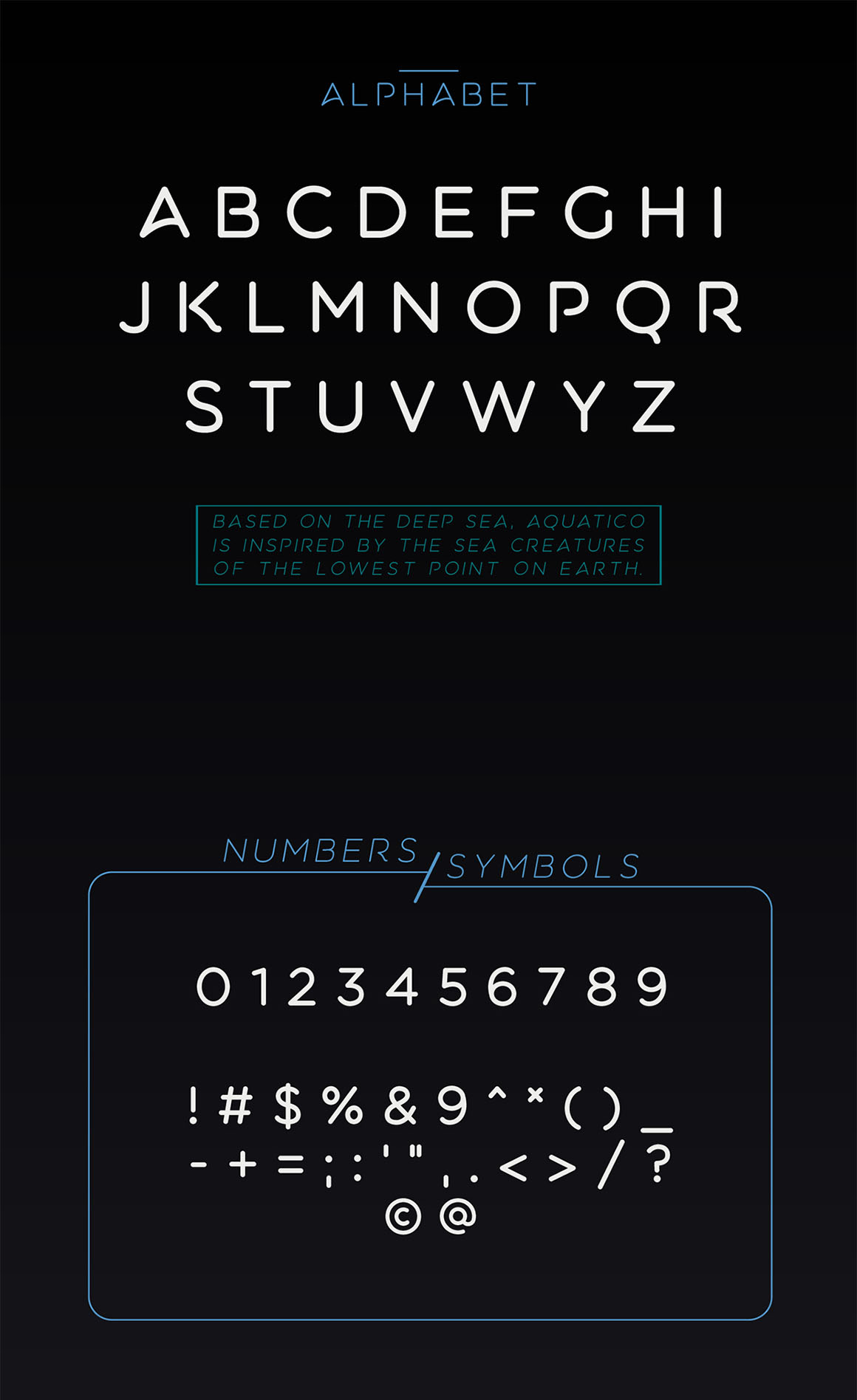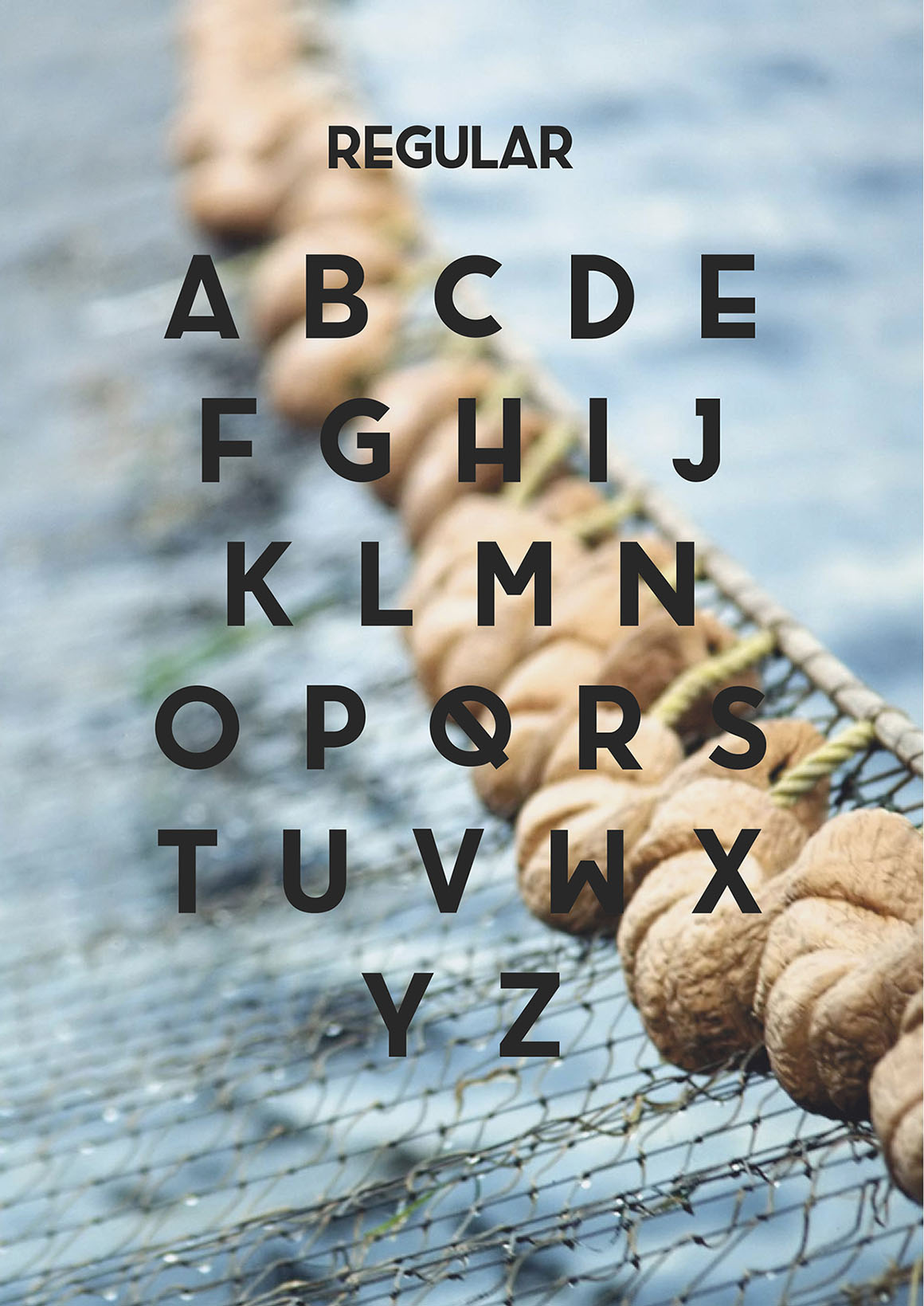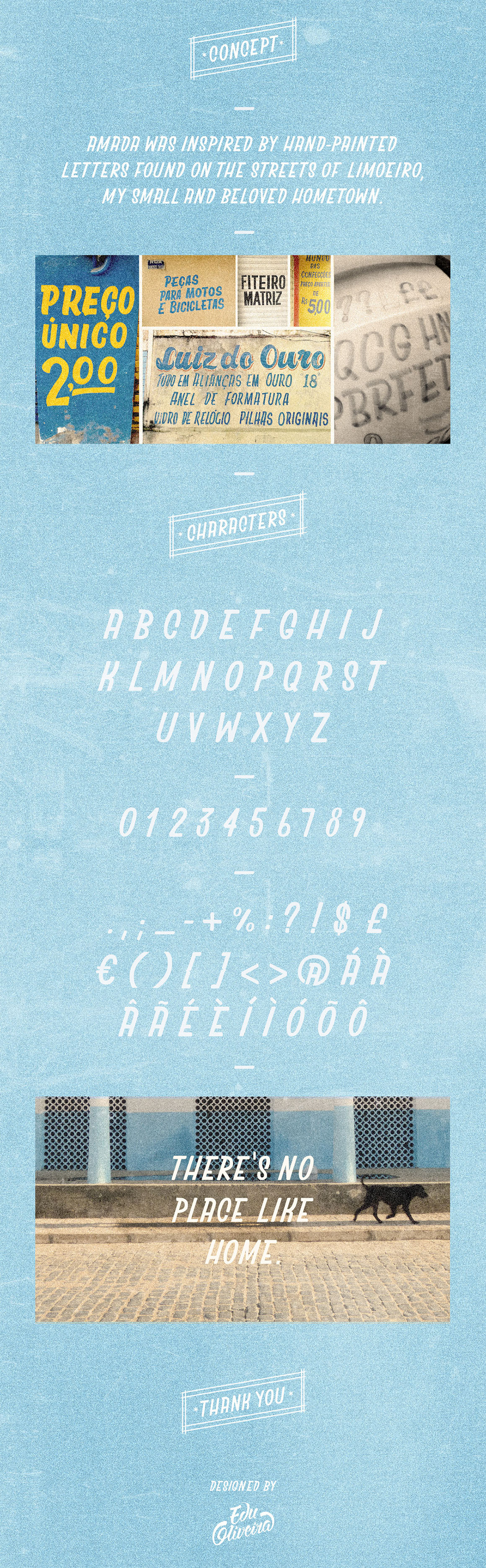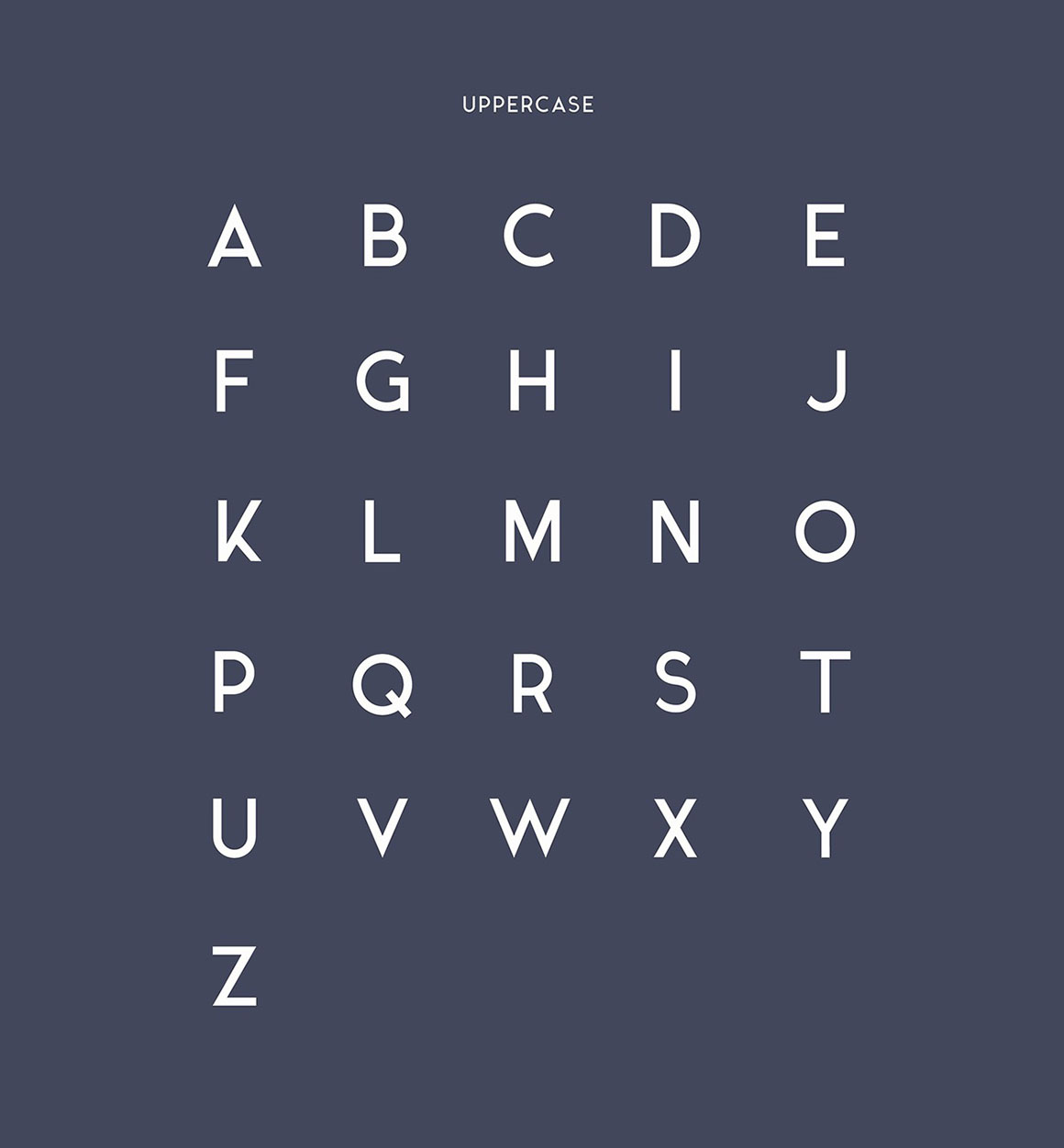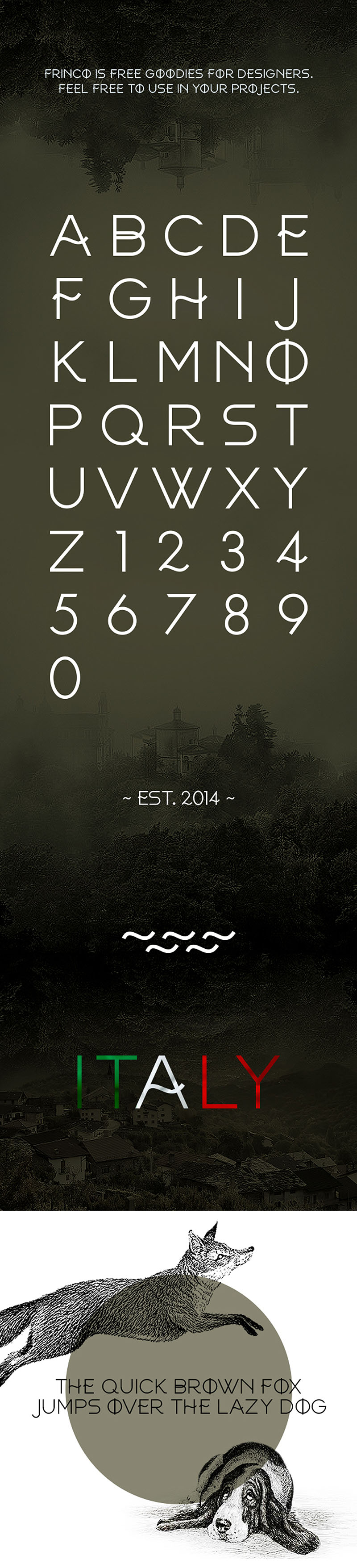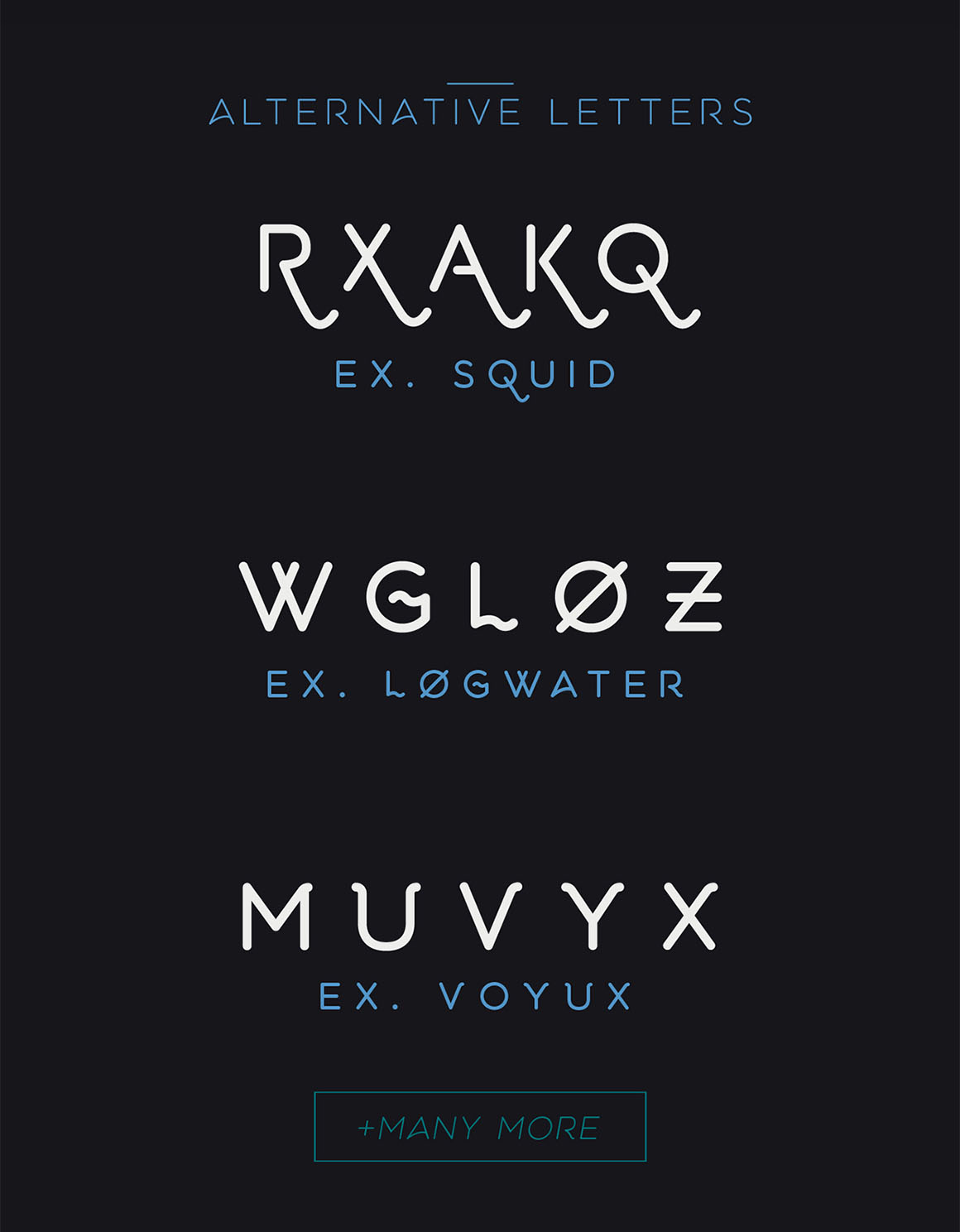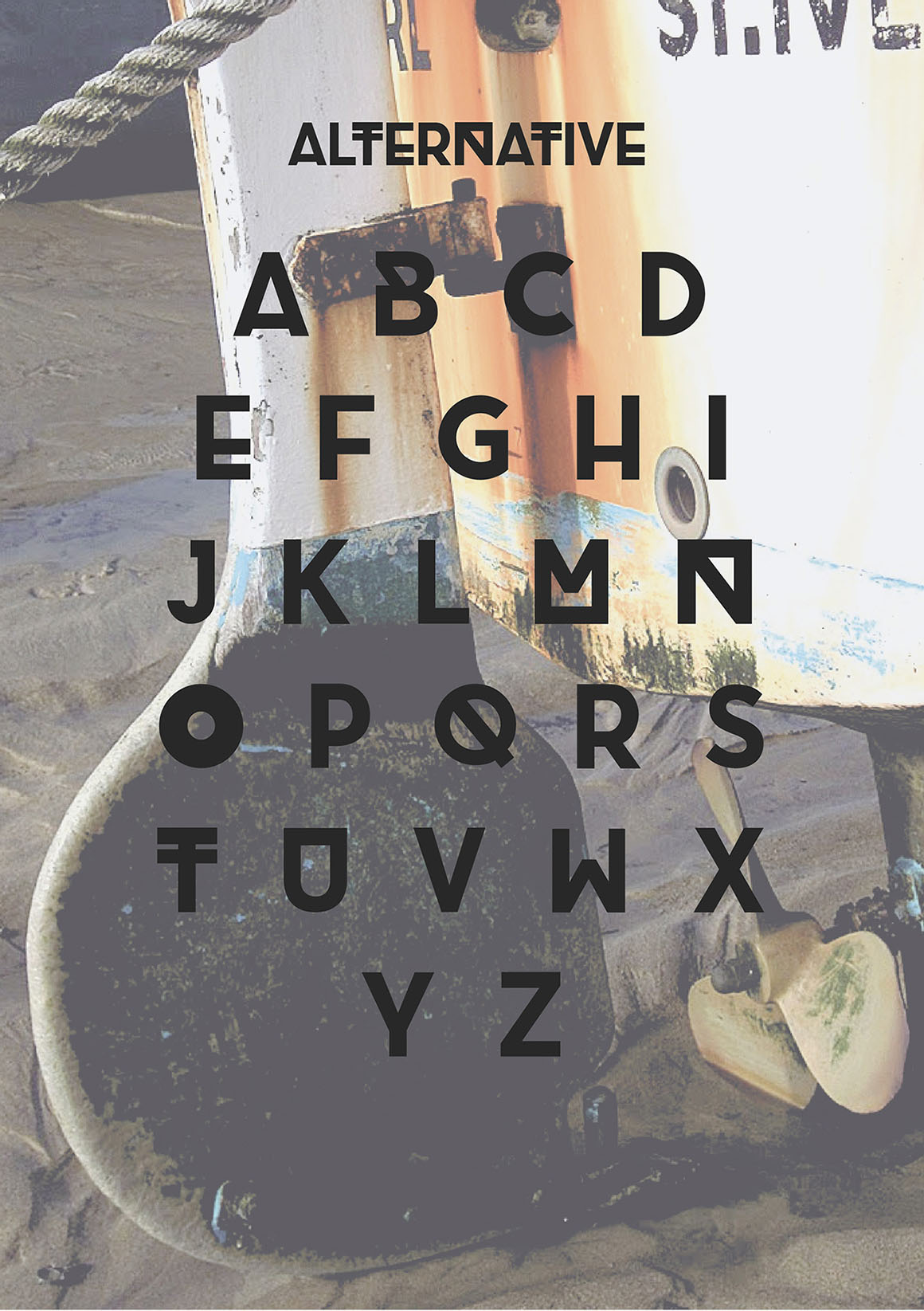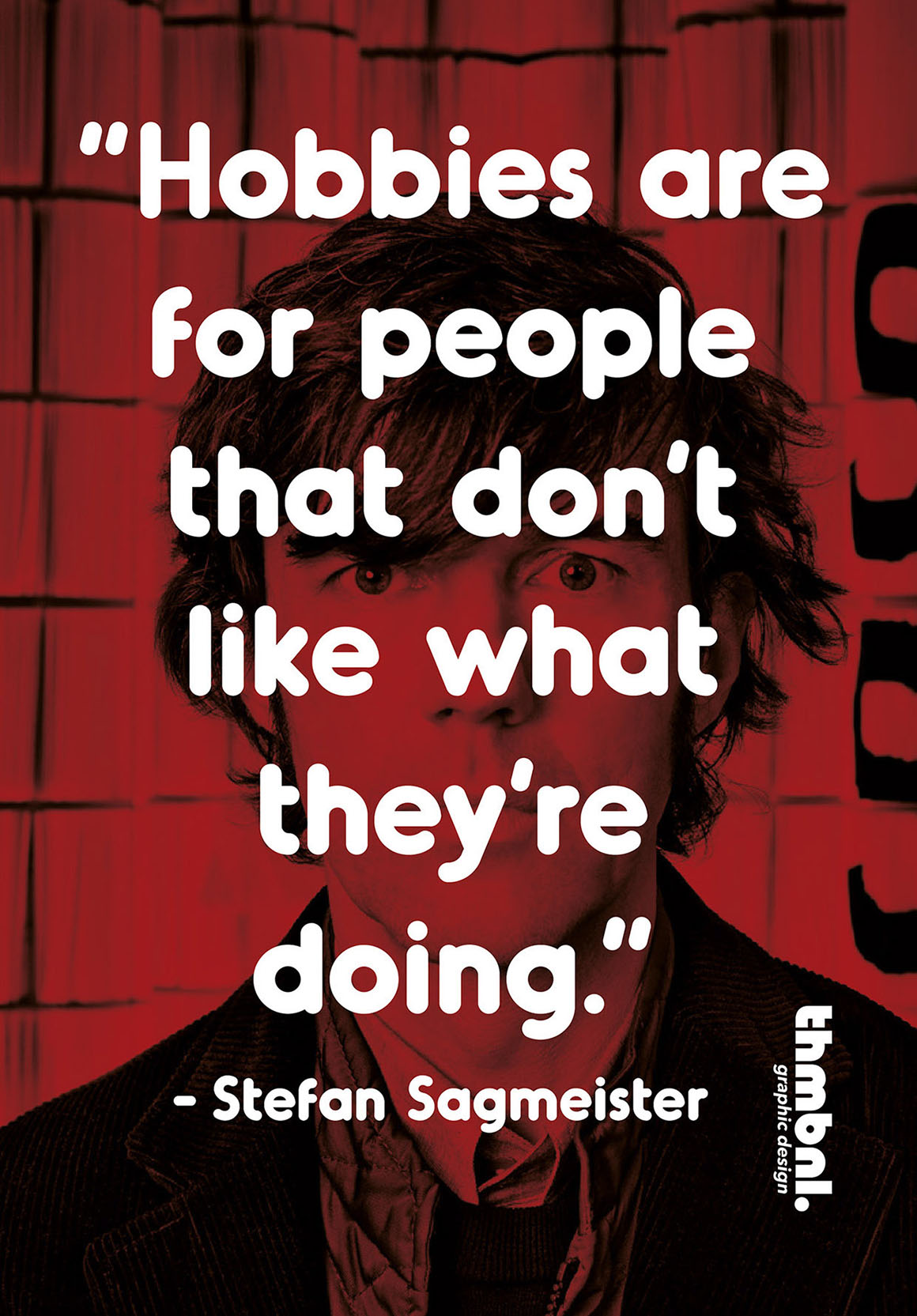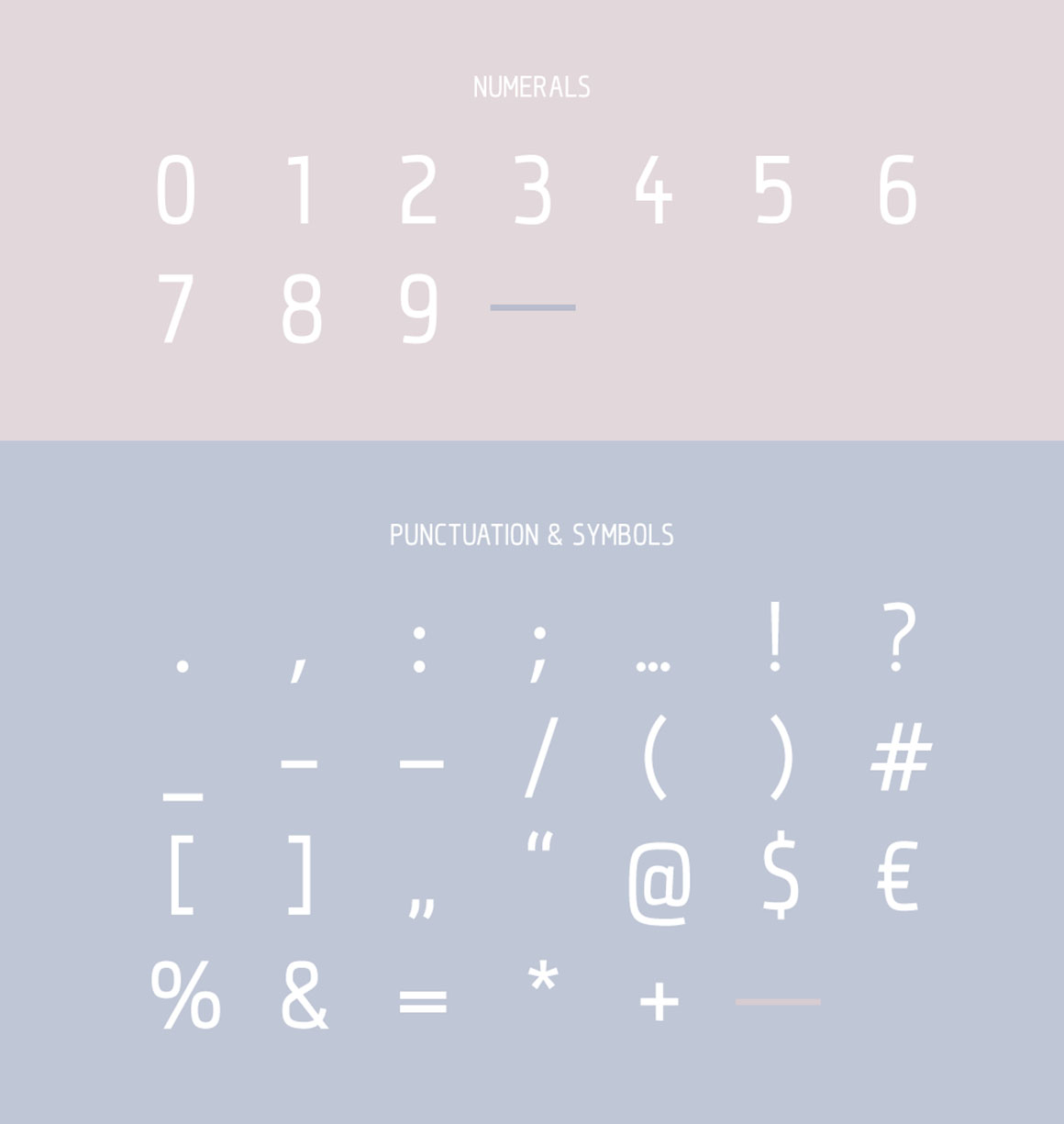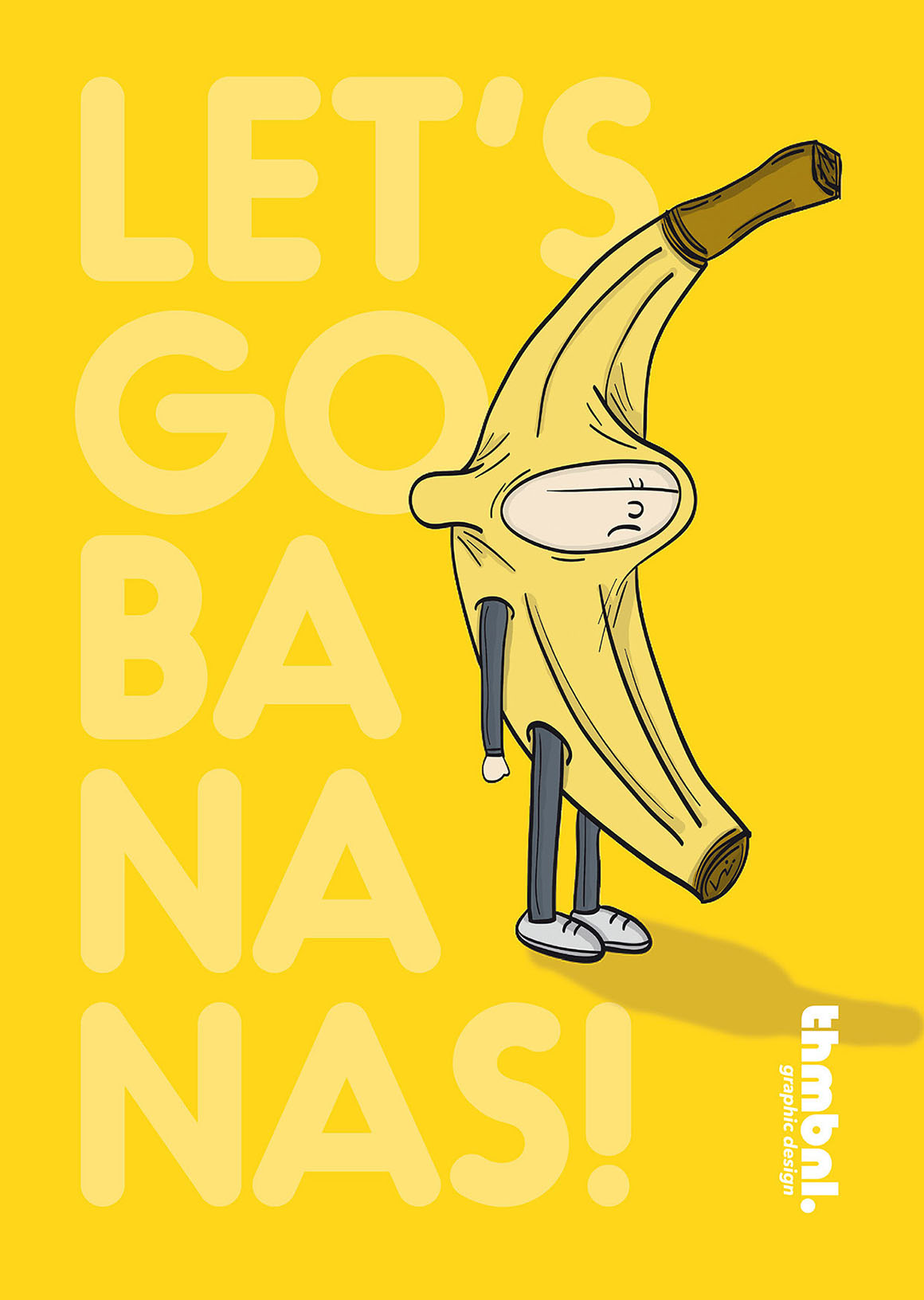
1. Aquatico – Free Rounded Typeface by Andrew Herndon
This unique custom font is from Andrew Herndon. Modern font with rounded style. Great for your new projects.
2. Brig – Free Font by Filipe Rolim
This unique custom font is from Filipe Rolim. Modern font with futuristic touch. Great for your new projects.
3. Qontra – Free Sans Serif Font by Tomaz Hrastar
This elegant and clean sans serif custom font is from Tomaz Hrastar. Great for your new projects.
4. Oduda – Free Rounded Font by Thom Niessink
This cool custom font is from Thom Niessink. With cool rounded style and great for your new creative projects.
5. SYNTHESIA – Free Font by Cahya Sofyan
This free custom font is from Cahya Sofyan.
6. Shumi – Free Font by Ivan Shumikhin
This free custom font is from Ivan Shumikhin.
7. Marske – Free Font by Kash Singh & Sergiy Tkachenko
This free futuristic custom font is from Kash Singh & Sergiy Tkachenko.
8. Amada – Free Font by Edu Oliveira
This free custom font is from Edu Oliveira.
9. MadSquire – Free Futuristic Font by Nele Tullus
This cool custom font is from Nele Tullus. With unique futuristic style and great for your new creative projects.
10. Furgatorio – Free Font by Aaron Amar
This cool custom font is from Aaron Amar. With unique vintage style and great for your new projects.
11. Ikaros – Free Sans Serif Font by Matt Ellis
This free sans serif custom font is from Matt Ellis.
12. Reef – Free Rounded Font by RIT Creative
This cool modern style custom font is from RIT Creative.
13. Shihan – Free Font by Sergey Godovalov
This cool custom font is from Sergey Godovalov. Inspired by geometrical ornaments.
14. Fakedes – Free Serif Font by Cyril Mikhailov
This cool serif custom font is from Cyril Mikhailov. Comes with regular and bold version.
15. Slash – Free Display Font by Ronald Vermeijs
This script custom font is from Ronald Vermeijs. It’s design is unique and will stand out from the crowd, and it is designed for type lovers. Rockstar designers who look at every detail and want to create something special.
16. GOGÓIA – Free Font by Alan de Sousa
This cool & unique style custom font is from Alan de Sousa. Inspired by Brazilian tropicalism.
17. Kirvy – Free Font Family by Youssef Habchi
This clean & creative style custom font is from Youssef Habchi.
18. Facile Sans – Free Clean Font by Twicolabs
This clean style custom font is from Twicolabs.
19. Arkhip – Free Font with Russian Soul by Design Klimov
This cool custom font is from Design Klimov.
20. Frinco – Free Creative Font by Ryan Pyae
This unique & creative style custom font is from Ryan Pyae.
21. MAXWELL – Free Retro Font by Ryan Pyae
This retro style custom font is from Ryan Pyae.